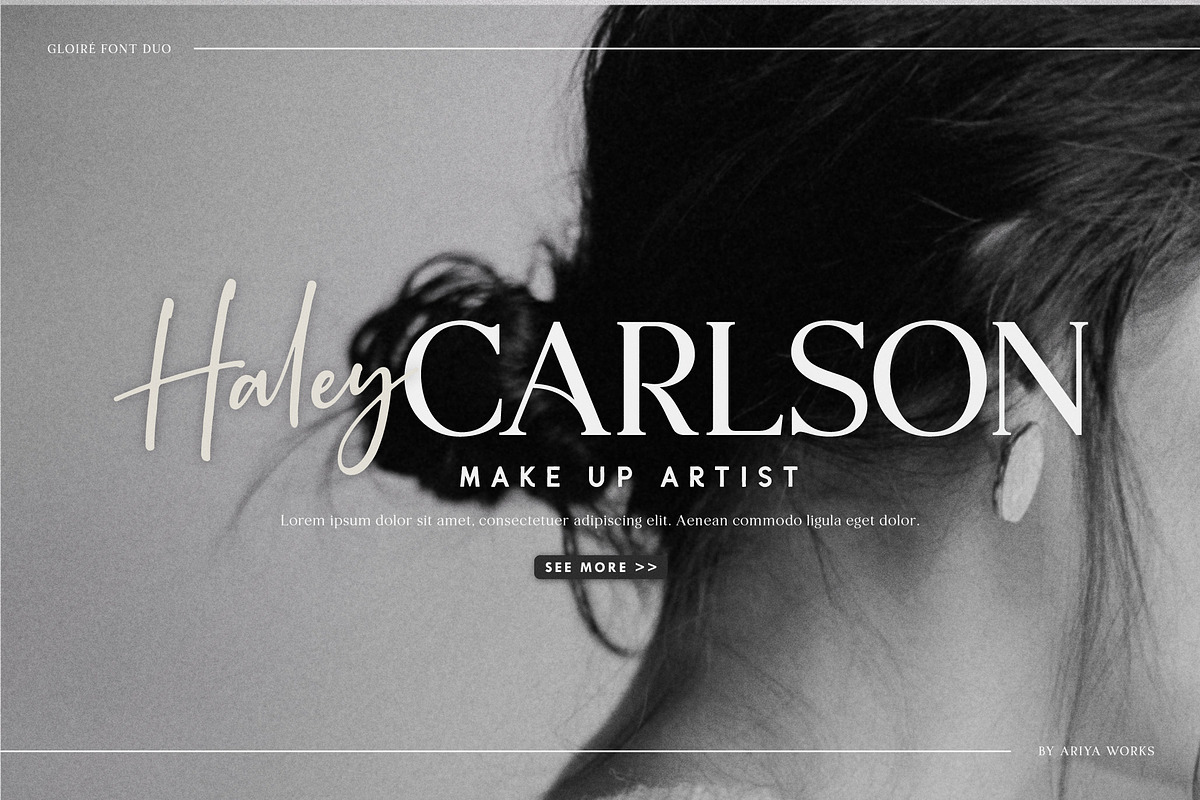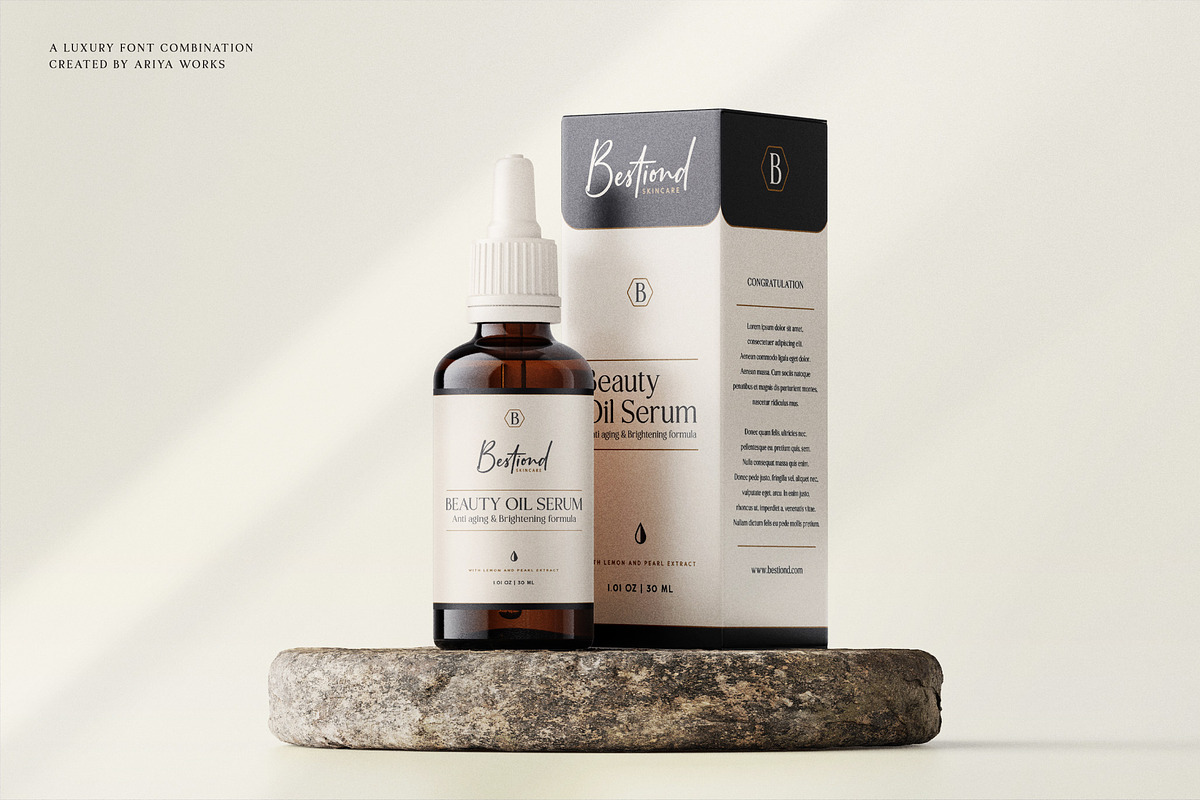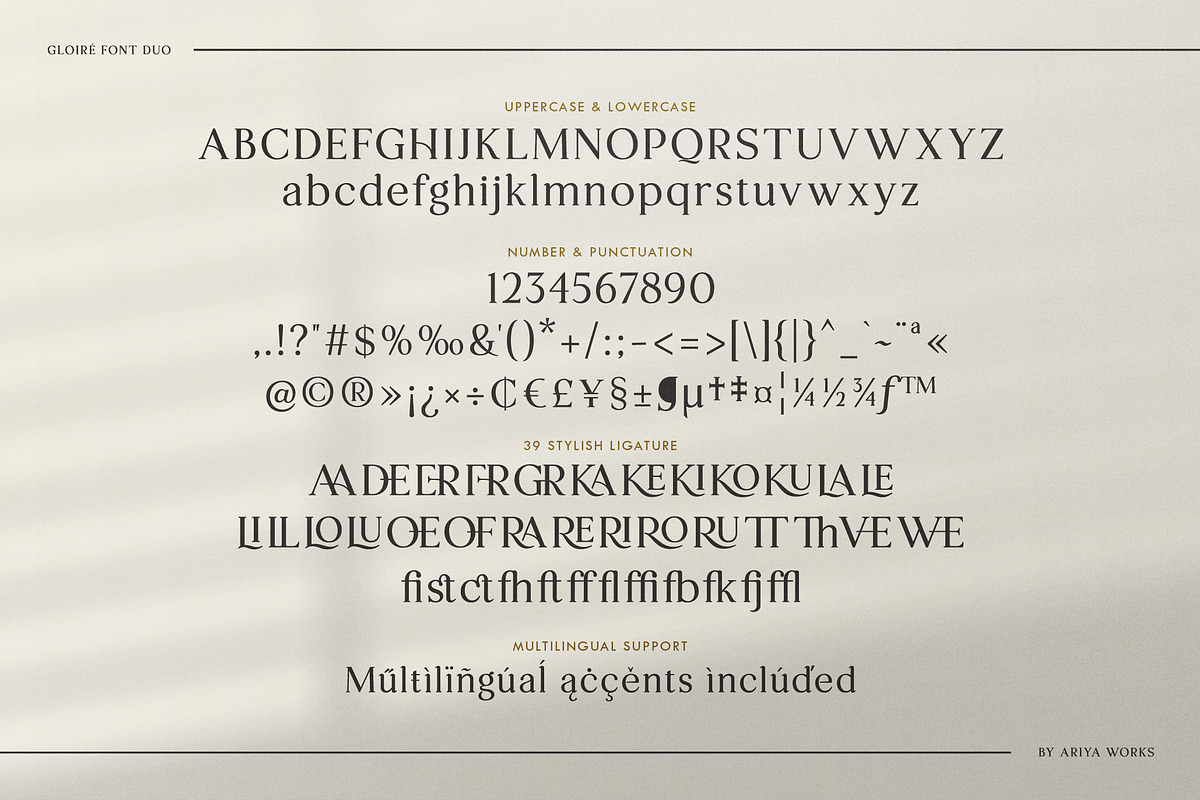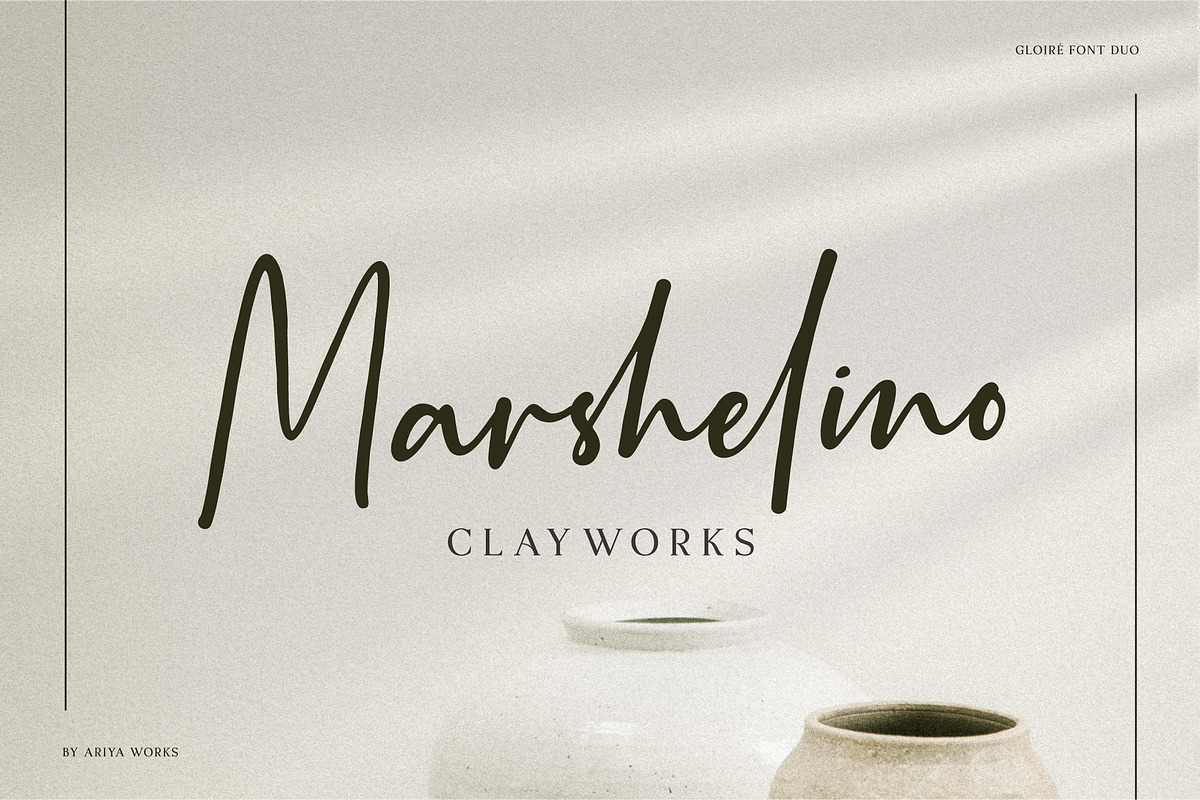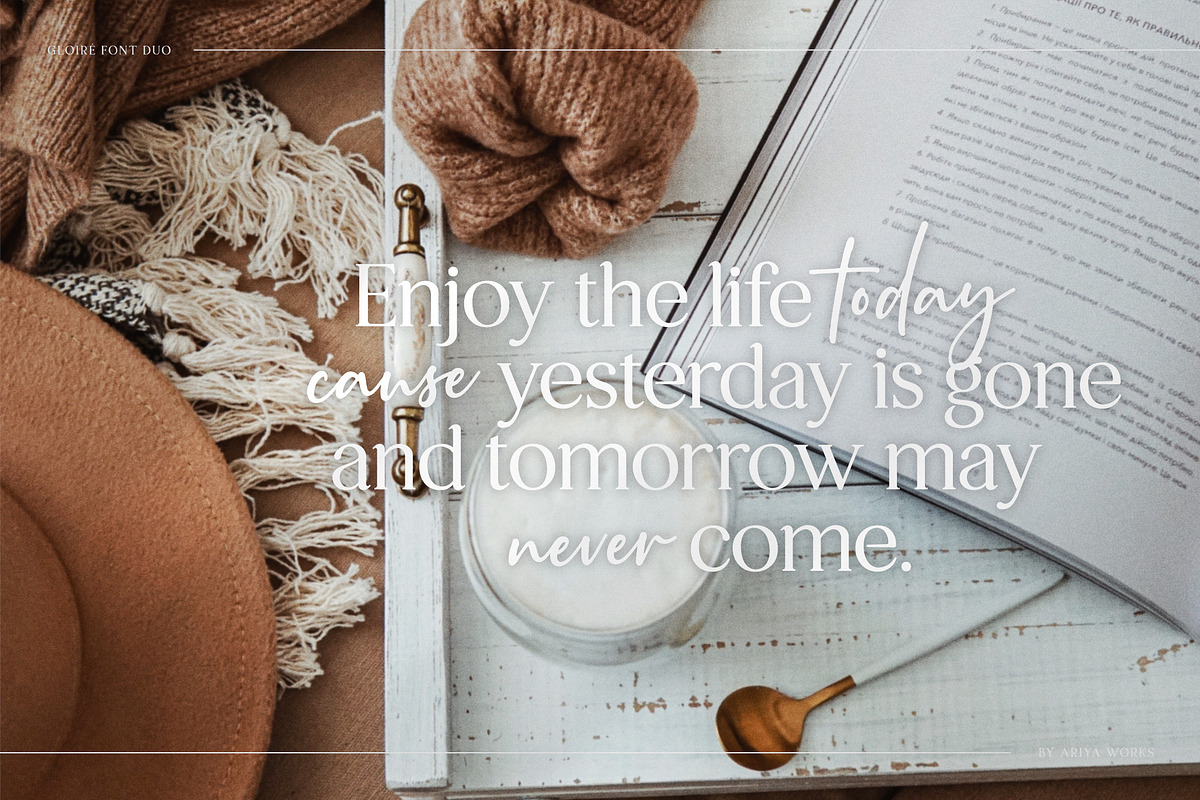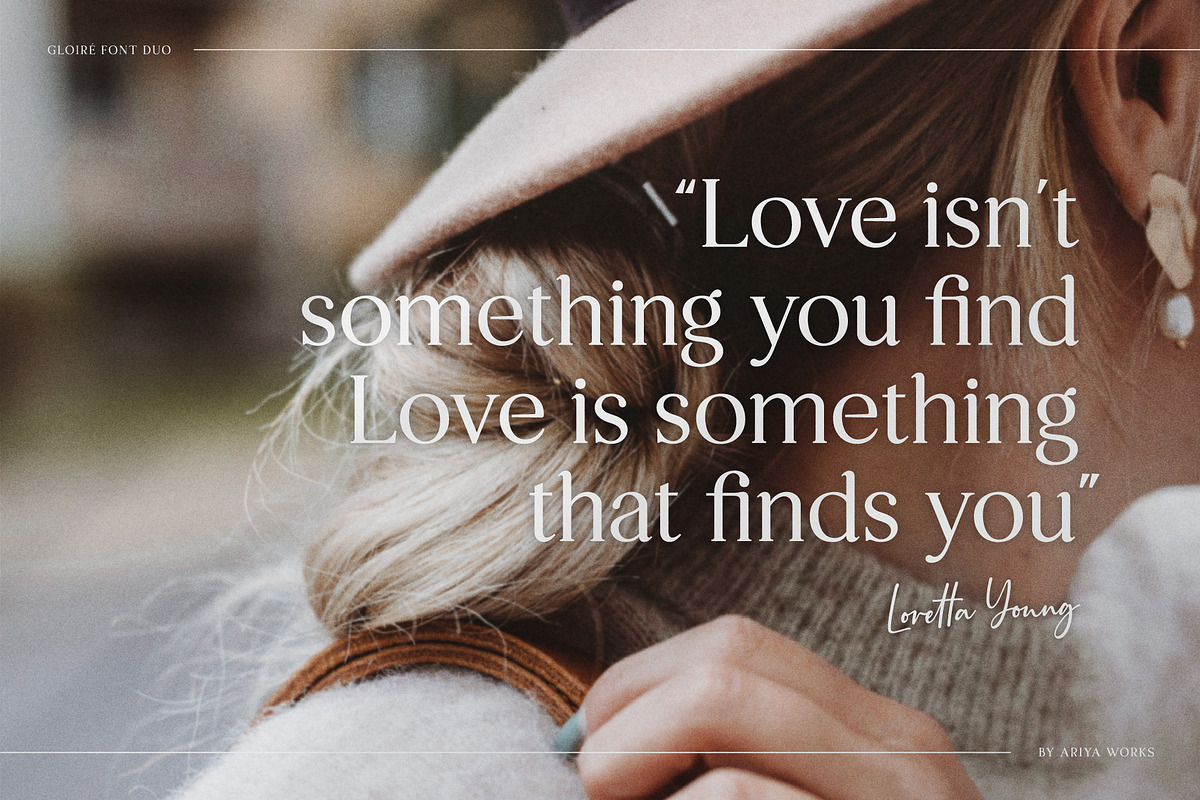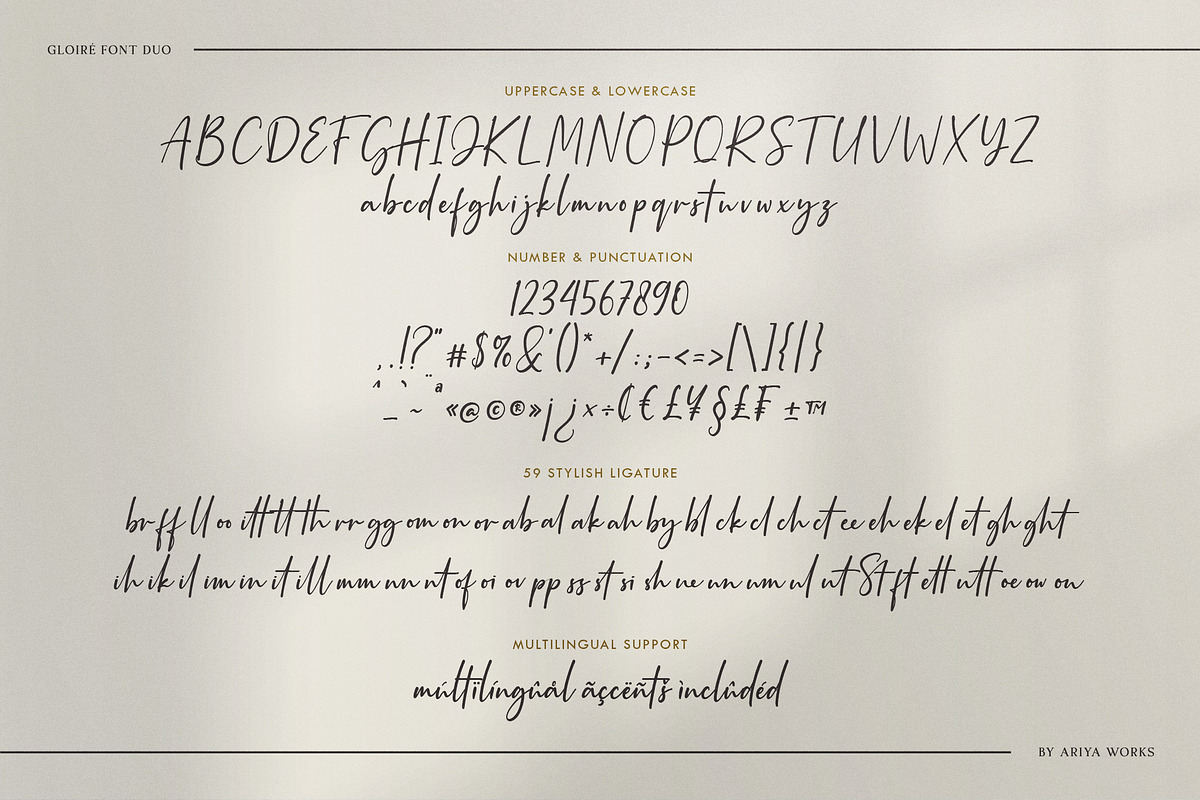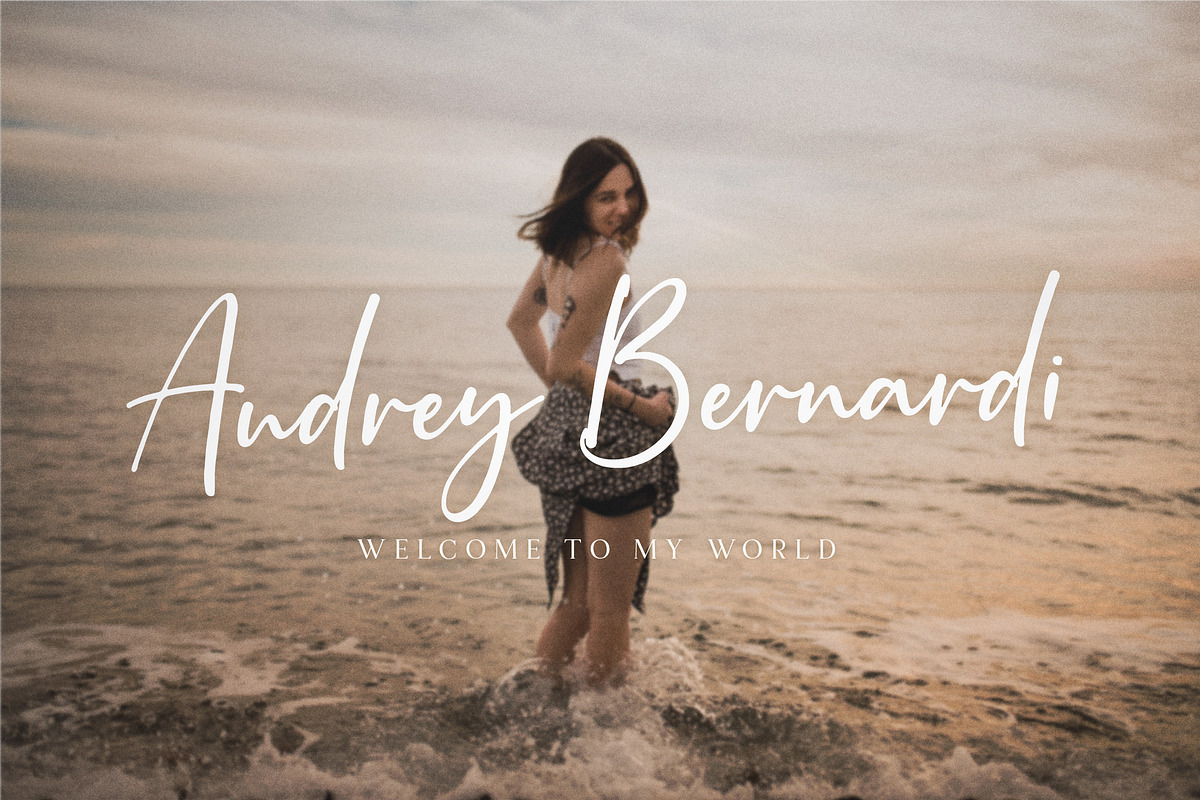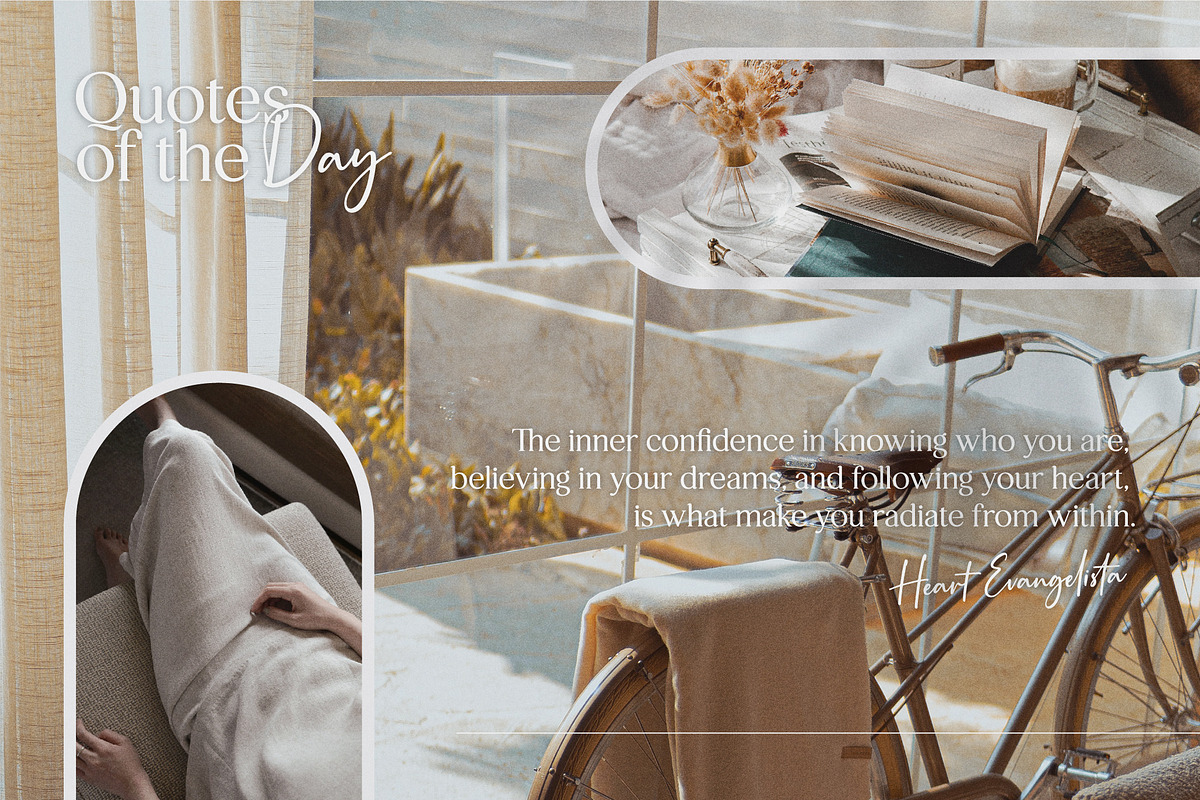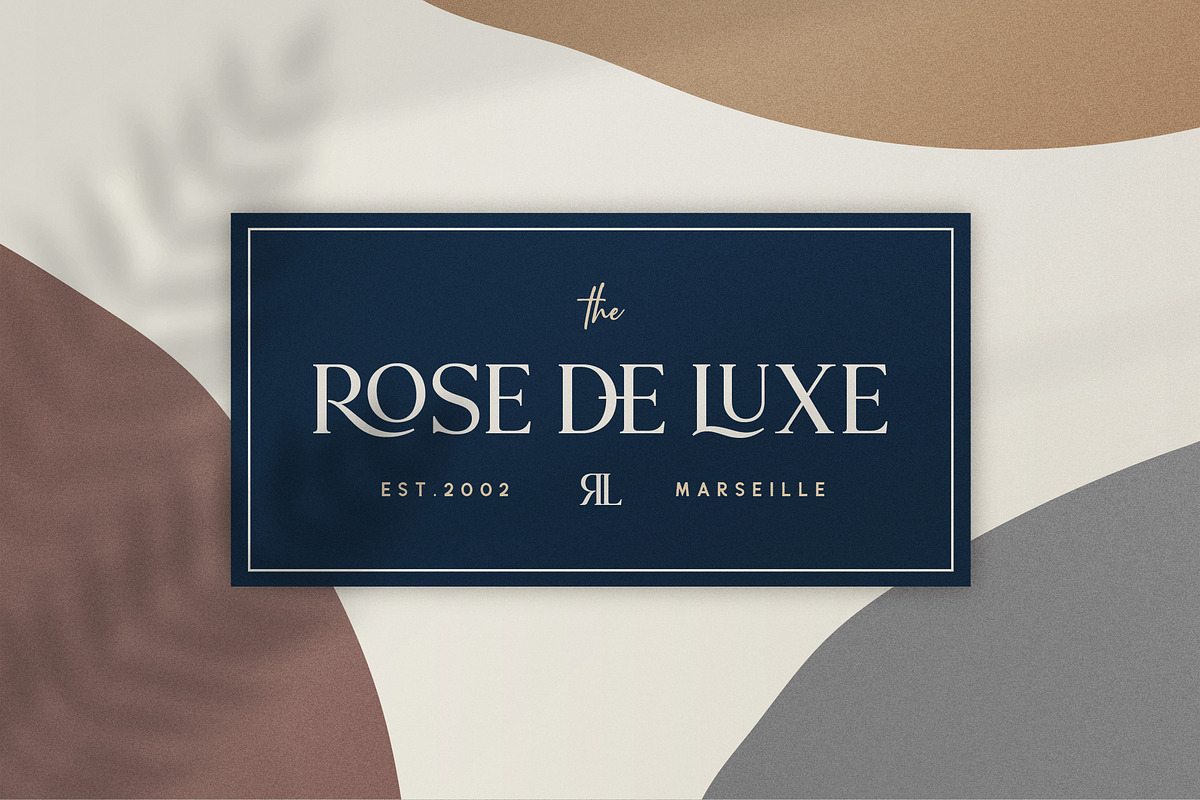
Gloire | Font Duo Serif-Script
GLOIRÉ is an elegant serif typeface paired with natural handwritten script. This font has a modern, curvy and luxury look. It is suitable for any projects such as: website, logos, branding identity projects, label, photography, watermark, special events, and all your other lovely projects that need an elegant font design.
This font offers opentype ligature set features. It offers support for all English characters, some characters in multiple languages and standard punctuation marks are included.